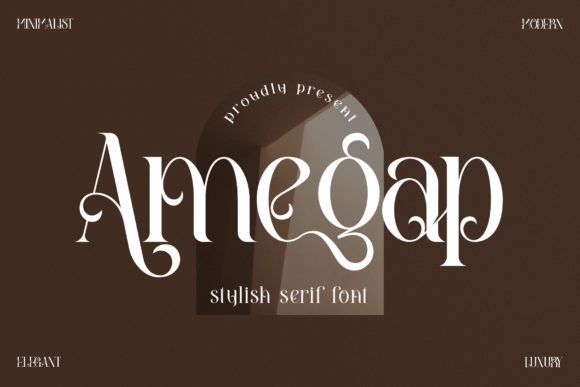
Prepare to dive into the realm of typography with the extraordinary Amegap font, a creation of the renowned Storytype Studio. This exquisite serif font exudes elegance and sophistication, beckoning you to unleash your creative spirit.
Embark on an artistic adventure with Amegap, meticulously crafted to elevate your designs to dazzling heights. Its intricate details and graceful curves will captivate your audience, leaving an unforgettable impression. Whether you're crafting enchanting invitations, captivating social media posts, or designing captivating websites, Amegap will effortlessly elevate your creations.
But there's more to Amegap than meets the eye. This font holds the secret to unlocking your lead generation goals, effortlessly attracting potential customers and converting them into loyal patrons. Its persuasive charm will entice viewers, compelling them to engage with your content and take action.
Imagine your website adorned with the captivating allure of Amegap. Visitors will be mesmerized by its graceful lines, drawn in by its undeniable magnetism. This font has the uncanny ability to transform ordinary words into persuasive calls to action, effortlessly guiding users towards your desired outcomes.
With Amegap at your disposal, you'll discover a world of endless possibilities. Its versatility extends beyond lead generation, effortlessly adapting to a myriad of creative endeavors. Unleash your imagination and explore its potential in branding, marketing materials, packaging designs, and even fashion.
Experience the transformative power of Amegap today. Embrace its captivating essence and witness the remarkable impact it will have on your designs. Let its elegant strokes captivate your audience, leaving them spellbound by the sheer beauty of your creations.